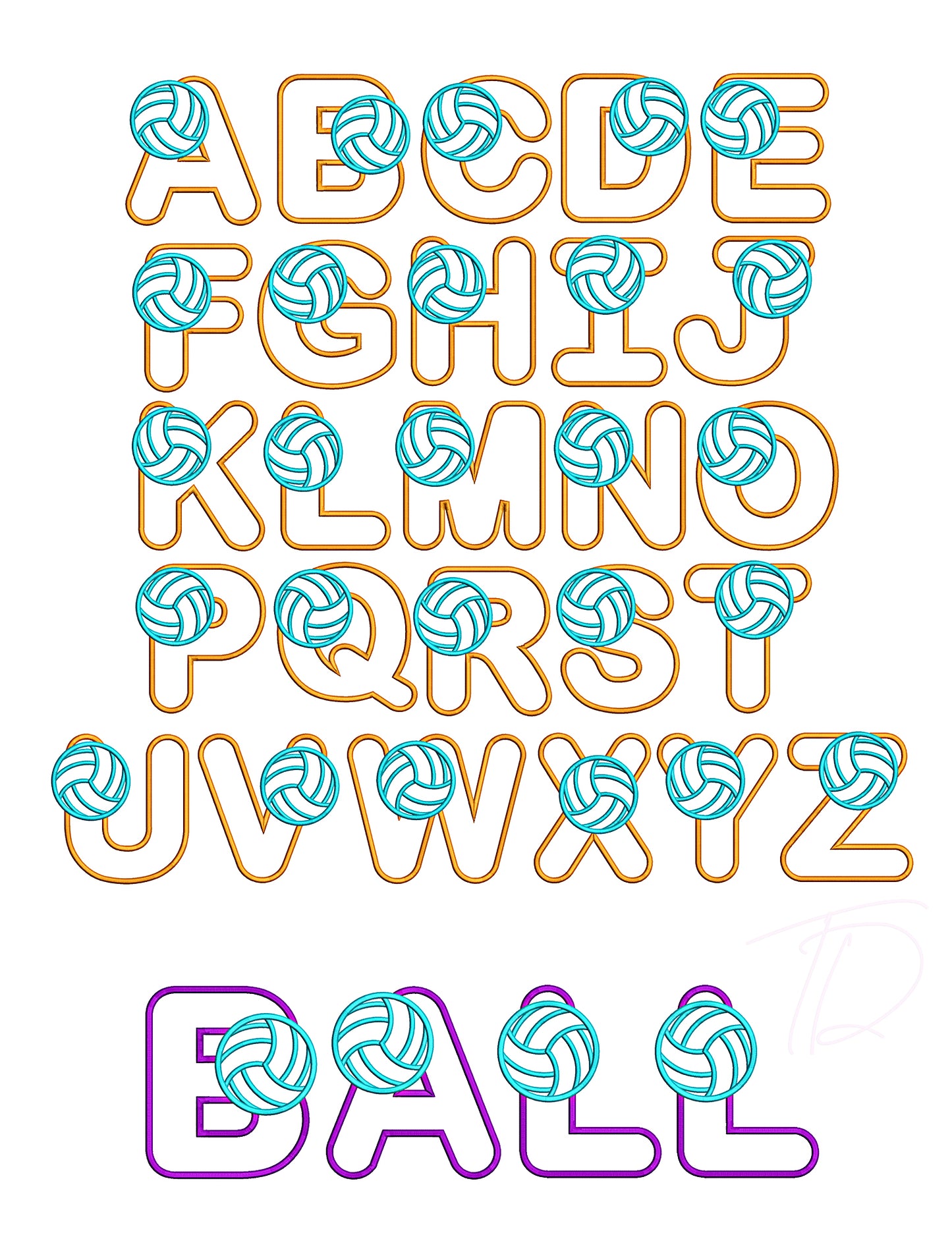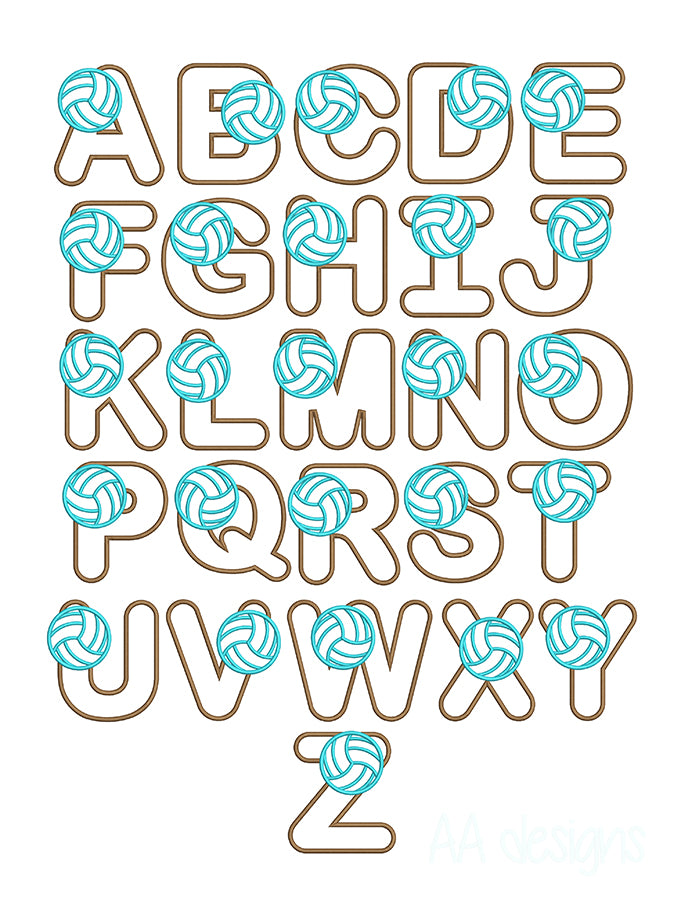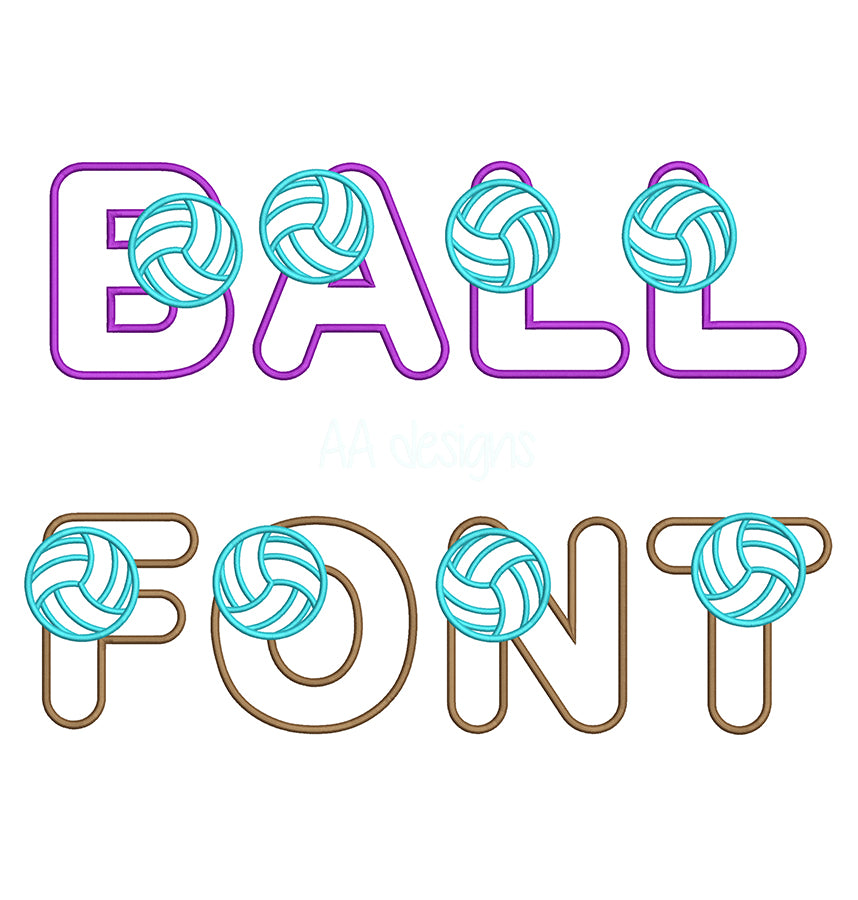
Volleyball Applique Embroidery Font
Bump, set, stitch! Introduce our Volleyball Applique Embroidery Font — a bold, sporty alphabet built for applique machine embroidery. The layered fabric technique gives each letter a striking, dimensional look that's perfect for team apparel and personalized sports gifts.
- Applique-style construction for a vibrant, textured finish with lower stitch count
- Bold athletic letterforms inspired by classic volleyball team typography
- Perfect for team names, player names, jerseys, bags, towels, and sports accessories
From outfitting a competitive volleyball squad to crafting the perfect gift for a court enthusiast, this applique font brings championship energy to every project.